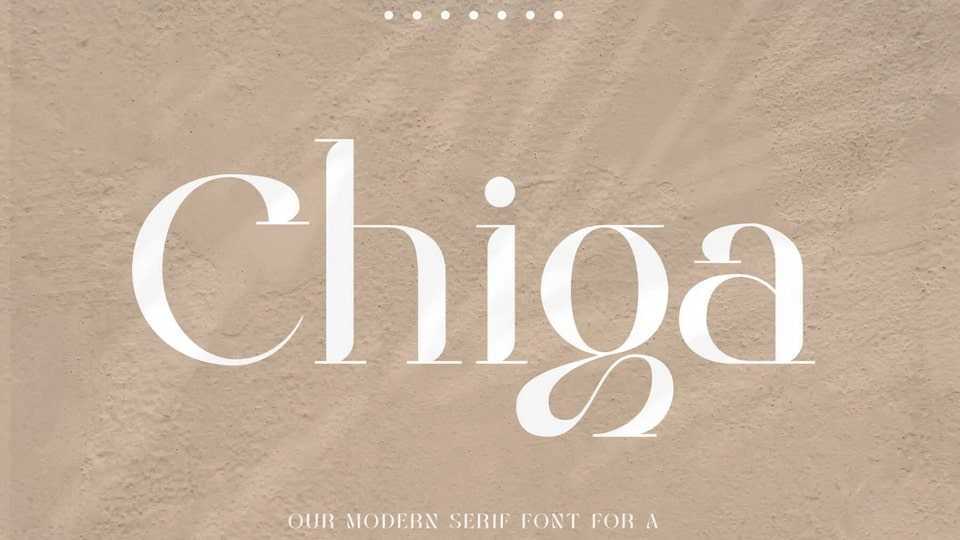
Download Chiga font, a modern serif typeface features unique curves on every letter and clean, straight strokes that give it a distinctive, eye-catching character.